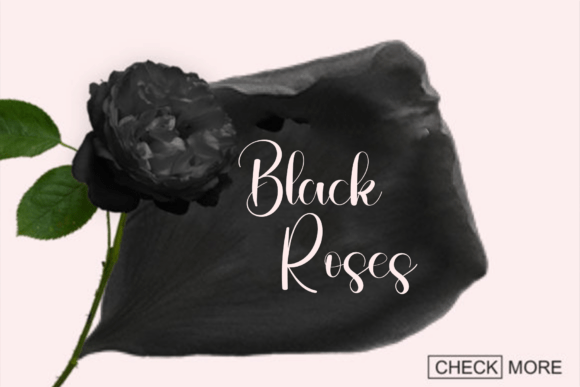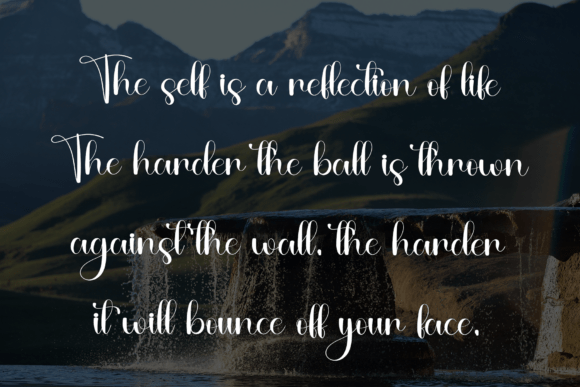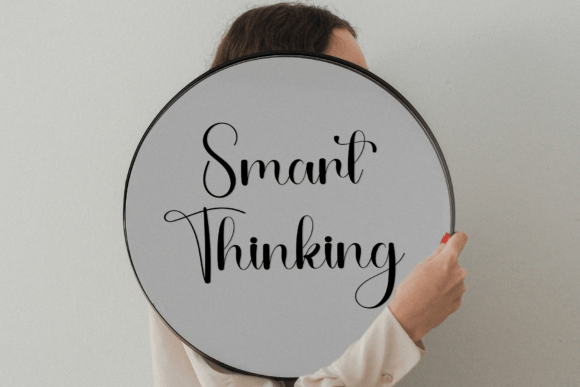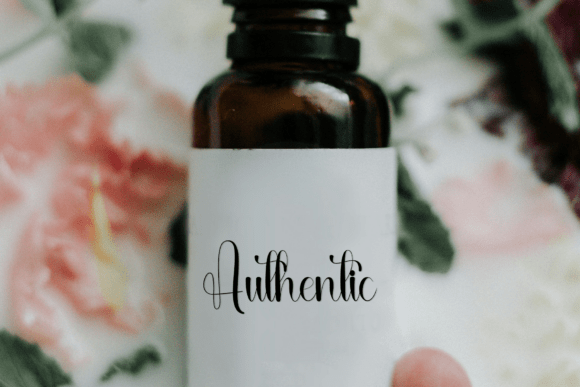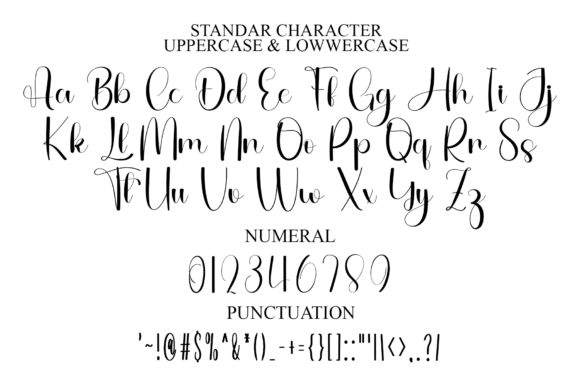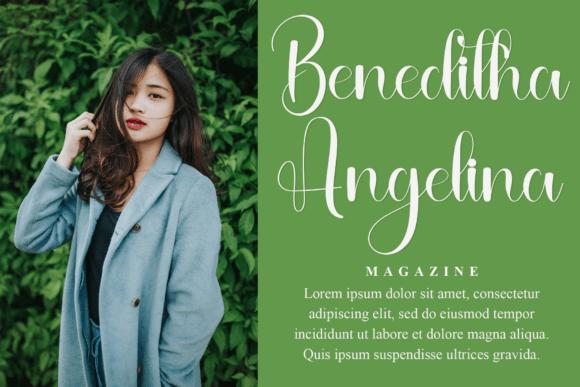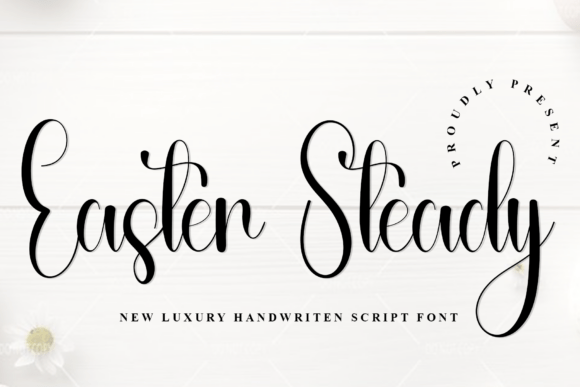
Introducing Easter Steady: The Epitome of Luxury Handwritten Script Fonts
In the realm of typography, few fonts manage to convey the essence of luxury and sophistication as effortlessly as Easter Steady. This exquisite handwritten script font is meticulously crafted for discerning designers and crafters who seek to infuse their projects with a touch of elegance and refinement. Easter Steady is not just a typeface; it’s an experience, designed to elevate your brand’s visual identity to unprecedented heights of opulence and poise.
The Artistry of Easter Steady
Easter Steady boasts a rhythmic, upright flow that is both captivating and graceful. Its dramatic loops and elegant, slender connectors are a testament to the skillful hand of a master calligrapher. Each letterform is carefully designed to exhibit a balanced weight and graceful terminals, which collectively contribute to its unparalleled sophistication. This font doesn’t just communicate; it narrates a story of luxury, precision, and attention to detail.
Crafting a Bespoke Feel
What sets Easter Steady apart from its contemporaries is its ability to offer a “bespoke” feel to any project it’s a part of. In an era where mass-produced and generic often prevail, Easter Steady provides a refreshing departure, making brands stand out with an air of exclusivity and high-end appeal. Its presence on any material instantly elevates the perceived value of the brand, making it an invaluable asset for those aiming to make a lasting impression.
Ideal Applications for Easter Steady
Easter Steady’s versatility is one of its most compelling attributes, making it suitable for a wide array of luxury projects. Here are some of the most impactful applications where Easter Steady truly shines:
- High-end Jewelry Branding: For luxury jewelry brands, Easter Steady offers a typographic solution that embodies elegance and opulence. Its sophisticated demeanor perfectly complements high-end jewelry pieces, enhancing brand identity and allure.
- Luxury Wedding Stationery: Elevate wedding invitations, programs, and thank-you cards with Easter Steady’s graceful and refined appearance. It adds a personal touch of luxury and bespoke craftsmanship to wedding stationery.
- Boutique Hotel Identities: Boutique hotels and luxury resorts can leverage Easter Steady to create unique and memorable brand identities. Its elegant script can enhance hotel logos, signage, and marketing materials, promising guests an upscale experience.
- Professional Photography Watermarks: For photographers seeking to protect their work with a watermark that exudes professionalism and style, Easter Steady is an excellent choice. It adds a subtle yet sophisticated layer of branding to photos without detracting from the imagery.
Why Choose Easter Steady?
In a crowded marketplace, Easter Steady stands out for several reasons:
- Unique Aesthetic: Its distinctive loops and connectors offer a fresh alternative to more traditional typefaces.
- Versatility: Suitable for a variety of luxury applications, from branding to stationery.
- High Perceived Value: Instantly elevates the brand’s image, suggesting exclusivity and high-end quality.
Easter Steady is more than just a font; it’s a statement of luxury, a marker of sophistication, and a tool for brands and designers to distinguish themselves in a crowded market. Its elegant design, versatility, and ability to convey a bespoke feel make it an indispensable asset for high-end projects. Whether you’re crafting a brand identity, designing wedding stationery, or protecting your photography with a watermark, Easter Steady is poised to leave a lasting impression. Embrace Easter Steady, and let its refined beauty transform your projects into timeless pieces of art.